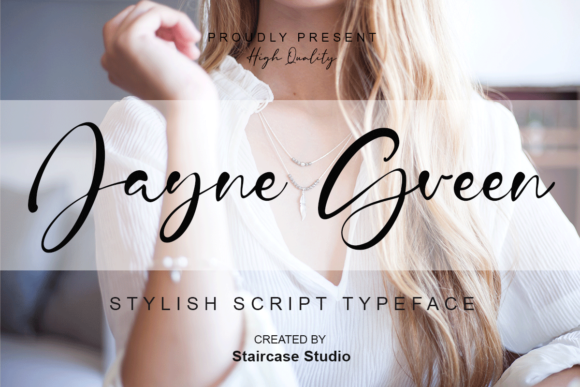
Dive into the world of elegance and finesse with Jayne Green Font, a captivating script font that exudes charm and grace. Crafted with the utmost care by staircasestudio20, this font is a symphony of artistic strokes, designed to make your creative visions come alive.
Step into a realm of endless possibilities with Jayne Green Font. Its delicate lines and flowing curves dance across the page, evoking a sense of timeless beauty. Whether you're crafting wedding invitations, thank-you cards, heartwarming quotes, or captivating greeting cards, this font is your perfect companion.
With Jayne Green Font, you can infuse a touch of sophistication into your logos and business cards, leaving a lasting impression on clients and customers. Its versatility extends beyond the digital realm, as it effortlessly adorns t-shirts, adding a touch of personal style to your wardrobe.
The creative genius behind Jayne Green Font lies in its PUA encoding. This remarkable feature grants you the power to effortlessly access a treasure trove of glyphs and swashes, unlocking a world of customization and artistic expression.
Embrace the allure of Jayne Green Font, a font that captivates the senses and sparks the imagination. Let your creativity soar as you explore the boundless possibilities it offers. Download Jayne Green Font today and embark on a journey of artistic discovery.